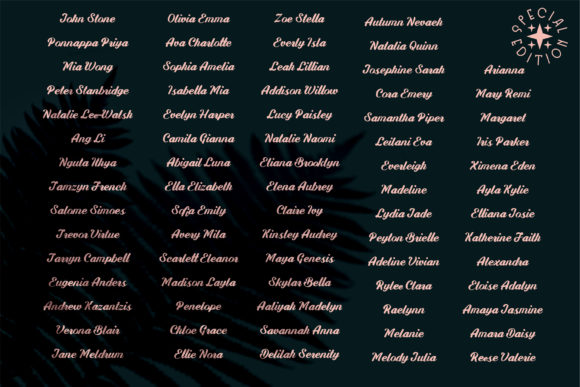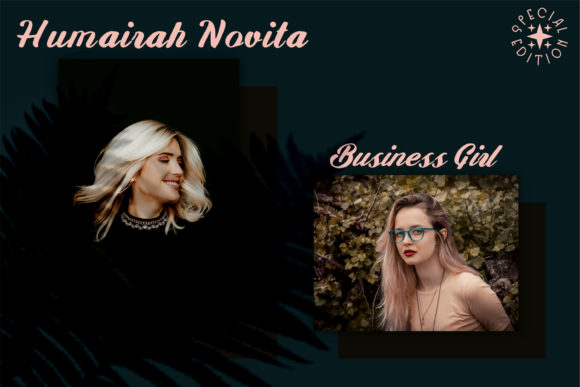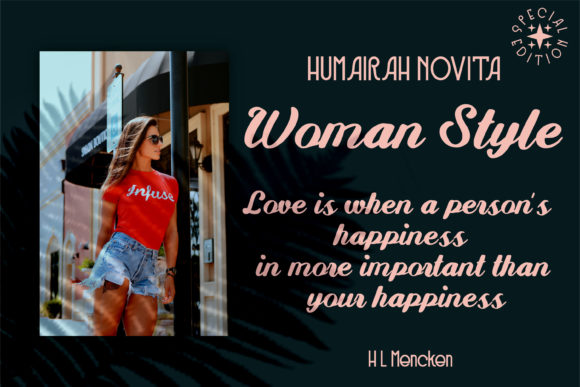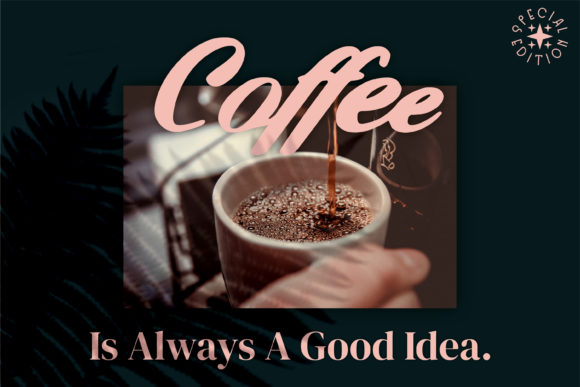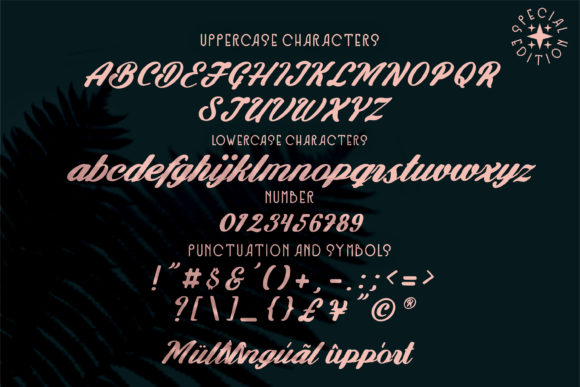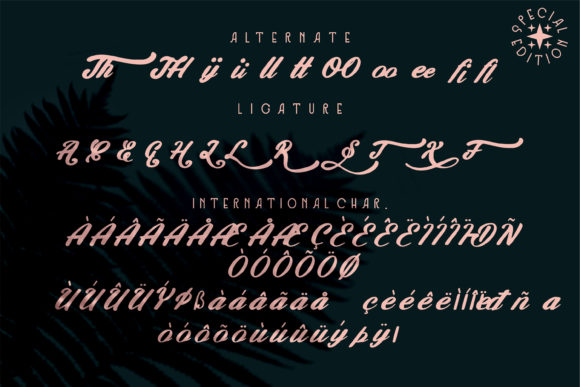
Introducing Feel Special Font: Elevate Your Designs with Elegance
Are you looking for a font that adds a touch of luxury and sophistication to your designs? Look no further than Feel Special Font, a lovely script font that is perfect for a wide range of projects. From logos and branding to homeware designs, product packaging, and more, Feel Special Font is the ideal choice for designers and crafters who want to create something truly special.
What Makes Feel Special Font So Special?
Feel Special Font is a beautifully crafted script font that exudes elegance and sophistication. Its flowing lines and curves make it perfect for adding a touch of luxury to any design. Whether you’re working on a logo, a poster, or a product label, Feel Special Font is sure to make your design stand out from the crowd.
One of the best things about Feel Special Font is its versatility. It’s suitable for a wide range of projects, including:
- Logos and branding projects
- Homeware designs
- Product packaging
- Mugs and ceramics
- Quotes and posters
- Shopping bags and t-shirts
- Book covers and name cards
- Invitation cards and greeting cards
- Labels and photography
- Watermarks and special events
Why Choose Feel Special Font?
There are many reasons why Feel Special Font is the perfect choice for your next design project. Here are just a few:
- Elegance and sophistication: Feel Special Font adds a touch of luxury to any design, making it perfect for high-end brands and products.
- Versatility: Whether you’re working on a logo, a poster, or a product label, Feel Special Font is sure to make your design stand out.
- Unique and exclusive: With Feel Special Font, you can create unique and exclusive designs that set you apart from the competition.
Tips for Using Feel Special Font
Here are a few tips for getting the most out of Feel Special Font:
- Use it sparingly: Feel Special Font is perfect for adding a touch of elegance to your design, but use it sparingly to avoid overwhelming the design.
- Pair it with other fonts: Feel Special Font works well with a wide range of other fonts, so don’t be afraid to experiment with different pairings.
- Experiment with different colors: Feel Special Font looks great in a wide range of colors, so experiment with different shades and hues to find the perfect look for your design.
| Font Name | Feel Special Font |
| Author | mahstudios |
Feel Special Font is a truly special font that is perfect for designers and crafters who want to add a touch of luxury and sophistication to their designs. With its elegance, versatility, and ease of use, Feel Special Font is the perfect choice for a wide range of projects. So why wait? Download Feel Special Font today and start creating your own unique and exclusive designs.
Key Features of Feel Special Font
- Beautifully crafted script font
- Elegant and sophisticated
- Perfect for logos, branding, and more
- Suitable for a wide range of projects
- Unique and exclusive